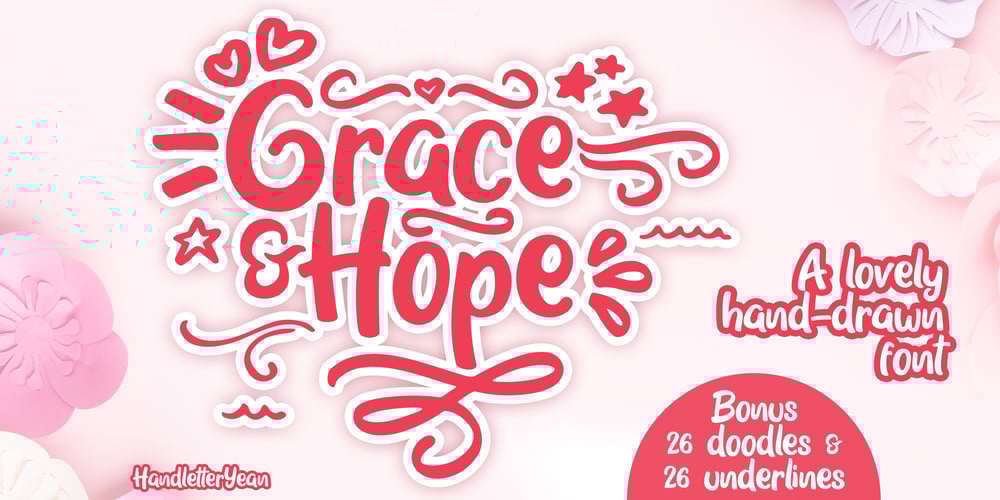
Grace & Hope Font Family was designed by Yean Aguste and published by HandletterYean. Grace & Hope contains 4 styles and family package options. Grace & Hope is a beautiful handwritten font. It features doodles and underlines. This eye-catching font will take your designs to the next level!Fall in love with its authentic feel and use it to create gorgeous wedding invitations, beautiful stationary art, eye-catching social media posts, and cute greeting cards.To access the alternate glyphs, you need a program that supports OpenType features such as Adobe Illustrator CS, Adobe Photoshop CC, Adobe Indesign, and CorelDraw. More information about how to access alternate glyphs, check out this link: http://goo.gl/ZT7PqK